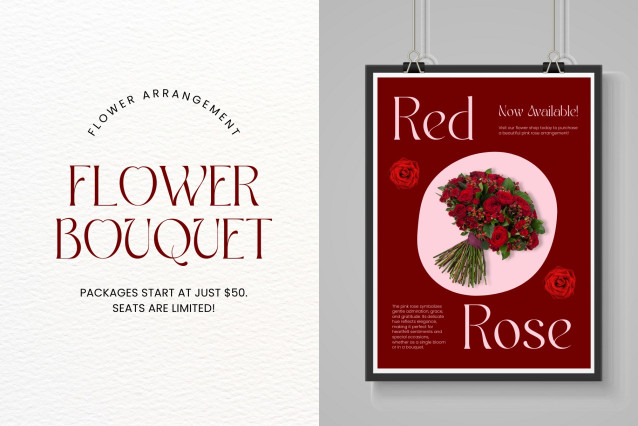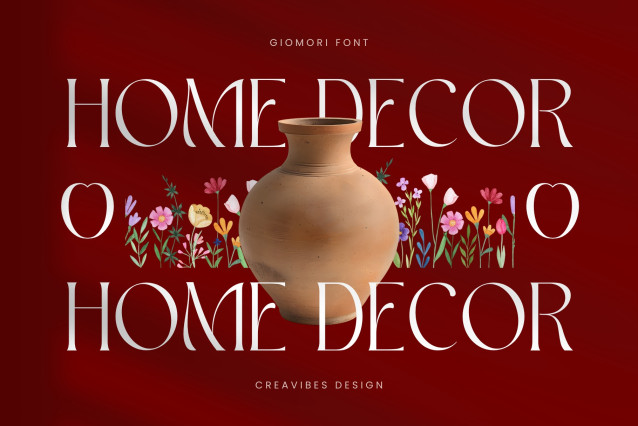
Giomori Font
Giomori Font is a stylish and versatile typeface. It includes two combined styles, offering designers a flexible range of creative options. With its distinctive letter shapes, Giomori is well-suited for projects requiring personality and visual impact – from branding and posters to editorial layouts and eye-catching headlines. This font can be used for personal purposes and showcases a modern aesthetic, elevating your design work with individuality and style.